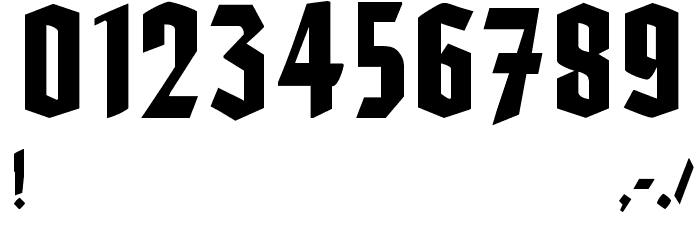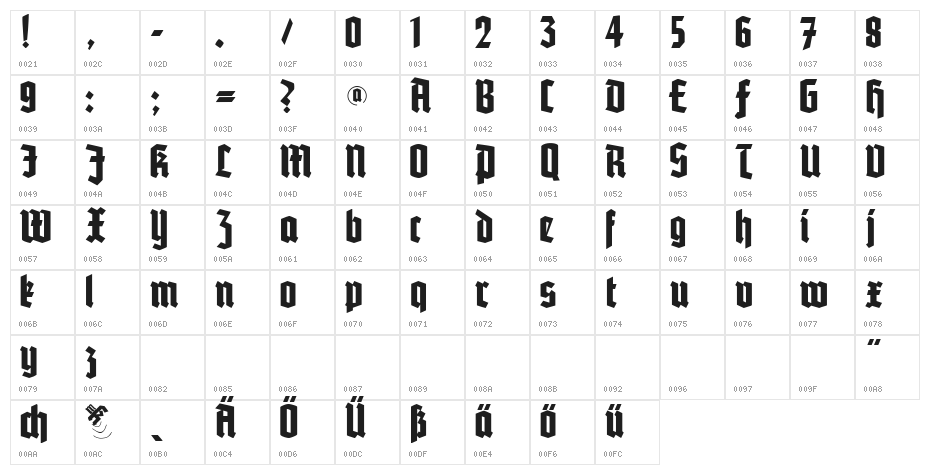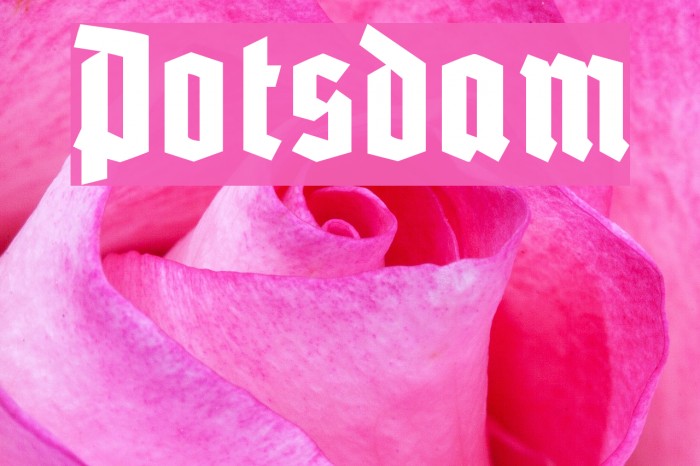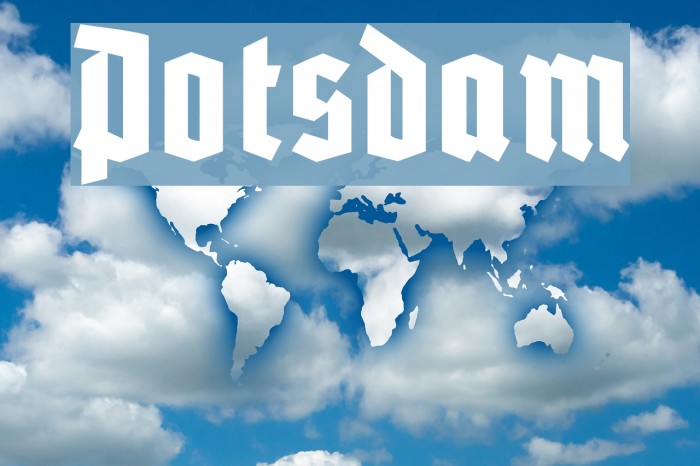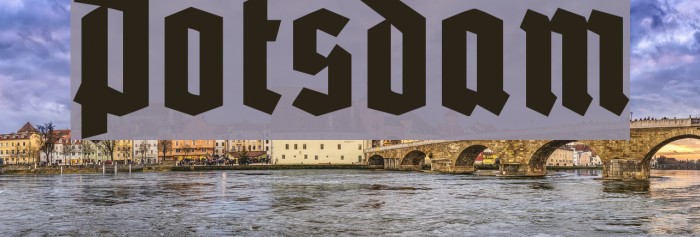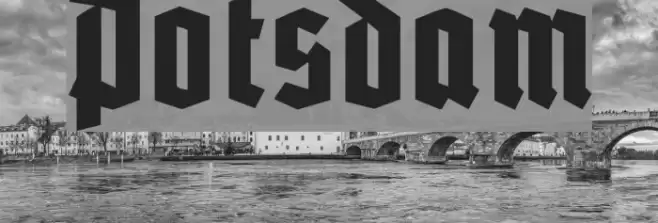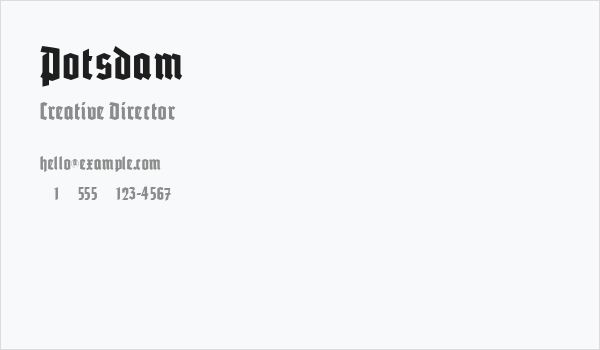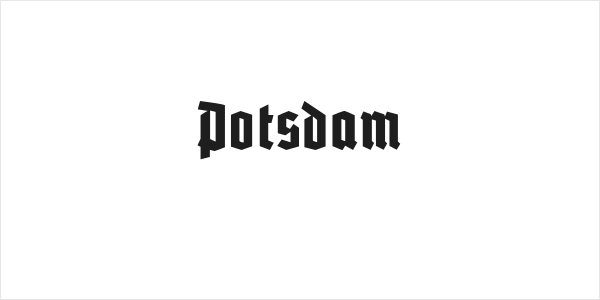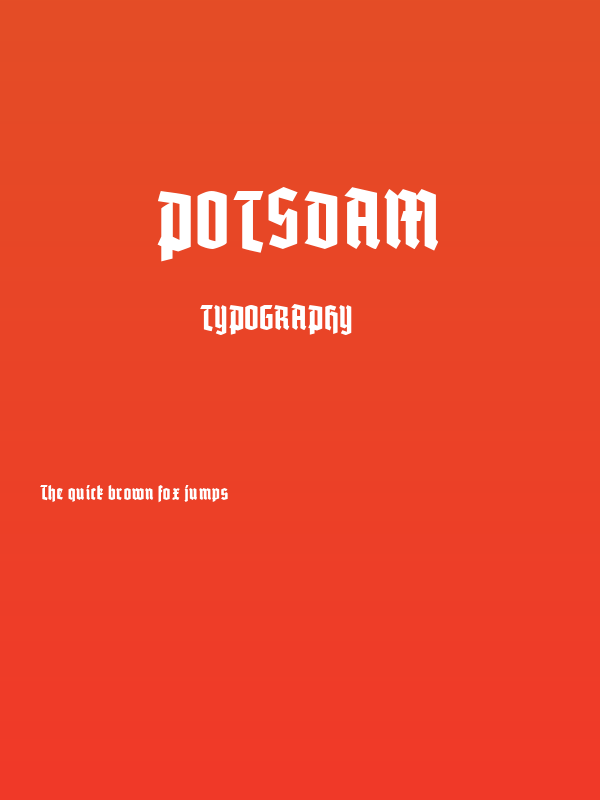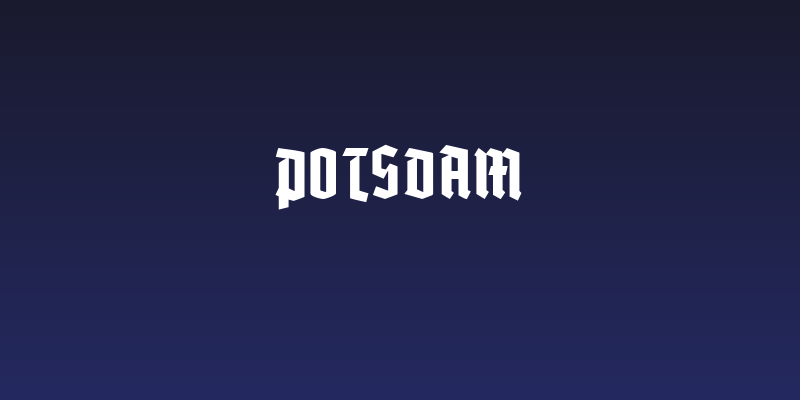
Potsdam Font
Potsdam Description
This font is a bold and striking blackletter style, characterized by its sharp, angular lines and intricate details. The uppercase letters are tall and commanding, while the lowercase letters maintain the same angular aesthetic, providing a cohesive look. The numbers are equally bold, with a strong presence that matches the overall style. Special characters are designed with the same attention to detail, ensuring they fit seamlessly with the rest of the font. This font is perfect for projects that require a historical or gothic touch, offering a dramatic and impactful visual appeal.
| Overall Style | Gothic |
| Proposed Projects | Ideal for historical documents, gothic-themed designs, posters, and branding that requires a dramatic impact. |